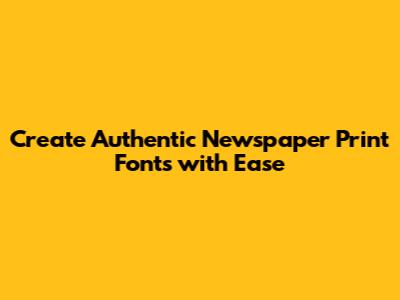
- Ink Bleed: Simulates the effect of ink spreading on the paper.
- Paper Texture: Adds a subtle texture to mimic the look of newsprint.
- Letter Imperfections: Introduces slight variations in letter shapes.
- Stroke Weight: Controls the thickness of the lines.
- Serif Styles: Choose from a variety of serif styles or create your own.
- Font Styles: Offers both regular and bold variations.
- Input: The generator takes your input, which could be anything from a pre-designed font to a blank canvas. Many generators offer a library of existing fonts to use as a base.
- Customization: This is where the fun begins! You'll be presented with a range of options to modify your font. These options usually include things like ink spread, texture, stroke thickness, and letter variations. Some generators use sliders and dropdown menus, while others offer more advanced control through detailed settings. You are usually provided with a preview window that shows how your font will look with all the adjustments you're making.
- Rendering: Once you're happy with your settings, the generator renders your font. This means it creates the digital files that make up the font, including the characters, numbers, and symbols. The rendering process may involve complex algorithms that simulate the effects of printing on newsprint.
- Output: Finally, the generator outputs your font in a usable format, such as TrueType (.ttf) or OpenType (.otf). You can then install the font on your computer and use it in your favorite design software, word processor, or any other application that supports fonts. This process can be simple or very complex depending on the generator, and you should always refer to the generator's instructions for the best results.
- Choose a Generator: There are many iNewspaper print font generators available online. Research and choose one that meets your needs and budget. Some are free, while others require a subscription or one-time purchase. Look for a tool that offers the features and customization options you need.
- Select a Base Font: Some generators allow you to start from scratch, while others provide a selection of pre-designed fonts. Choose a base font that you like or create your own if the generator lets you. A good starting point is a classic serif font, as these are often used in newspapers.
- Customize Your Font: Now comes the fun part! Experiment with the generator's customization options. Adjust the ink spread, paper texture, stroke weight, and other settings to achieve the desired look. Don't be afraid to play around and try different combinations.
- Preview Your Font: Most generators offer a preview window that shows how your font will look in real-time. Use this to see how your changes affect the overall appearance of the font. Make sure the font is readable and suits your needs.
- Use Your Font: Open your favorite design software or word processor and select your new font from the font menu. Type away and enjoy the unique, vintage look of your custom newspaper font! Test it out on various projects to see how it can be used.
- Start with a good base: Select a well-designed font as your starting point.
- Don't overdo it: Less is often more. Start with subtle adjustments and gradually increase the intensity.
- Consider the context: Think about how the font will be used and choose settings accordingly.
- Test on different backgrounds: Make sure your font is readable on various backgrounds.
- Experiment and have fun: The best way to learn is by experimenting!
Online Font Generators:
- FontStruct: A free, web-based tool that lets you build your fonts using geometric shapes. It's a great option for beginners who want a simple, easy-to-use interface. FontStruct allows you to create your own fonts or use templates to modify the fonts available.
- Calligraphr: Allows you to create your own font from handwriting. Simply create a template, print it out, fill in the letters, scan it back in, and Calligraphr will create a font for you. It's especially useful for those who want to create unique handwriting fonts.
Software-Based Font Generators:
- FontForge: A free, open-source font editor that's available for various operating systems. It's a powerful tool with a steep learning curve but offers extensive customization options. This is for users who want complete control over their font creation process.
- Glyphs: A professional-grade font editor for Mac. It's more user-friendly than FontForge and offers a wide range of features. Glyphs is a good choice for designers who want advanced control over their fonts.